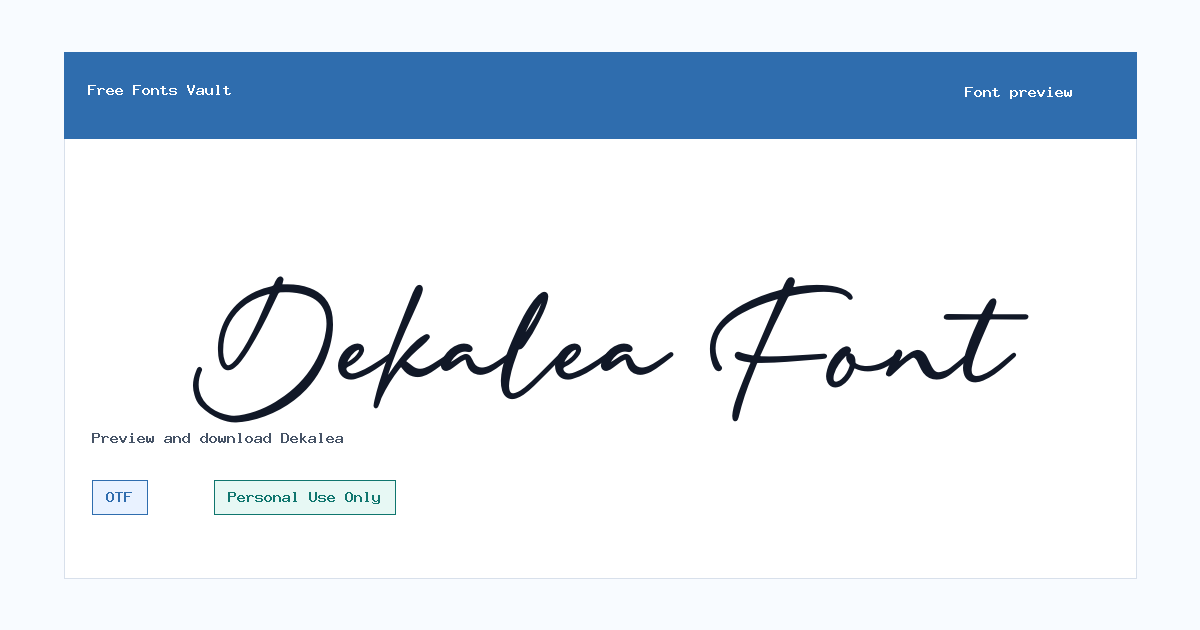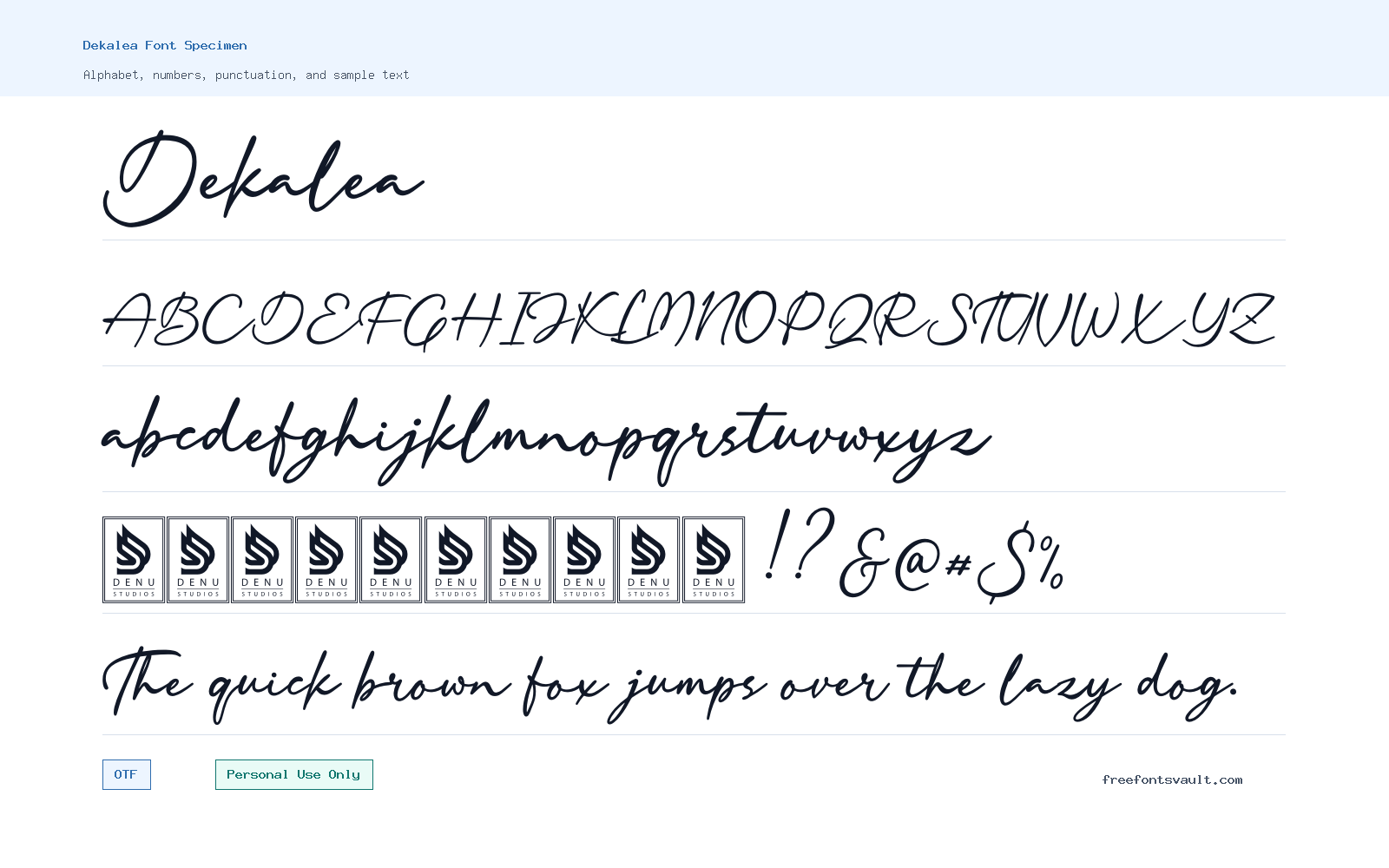
Dekalea
Dekalea font.
Dekalea is a signature script font with a personal-use license, made for visitors who want a smooth handwritten look for short, stylish text.
About Dekalea Font
Dekalea has the feel of a modern signature script: flowing, personal, and best used where the lettering can stay large enough to show its shape. It suits designs that need a handwritten accent rather than a long reading font. Think of name marks, short quotes, product mockups, invitation headings, social graphics, poster titles, and personal branding drafts. Because the available file is an OTF regular style, it is simple to install and test in common design apps that support OpenType fonts.
Use Dekalea with restraint. Script fonts work best when they have room to breathe, so try it on one name, one phrase, or one headline instead of a full paragraph. In logo work, test both wide and compact layouts, because connected strokes can become harder to read when the text is too small. For posters and web mockups, pair it with a clean sans serif or a quiet serif for supporting text. Let Dekalea carry the expressive part, then use the secondary font for dates, captions, buttons, menus, and longer descriptions. Always check the license first if the project is for a client, a product, advertising, merch, a business identity, or any other commercial use.
- Signature-style script look for short display text, names, headings, and decorative accents.
- Works best at medium to large sizes where the handwritten flow remains clear.
- Personal logo concepts and name-based marks
- Invitation headings and greeting card titles
- Poster titles with a soft handwritten accent
- Social media graphics and quote images
- Packaging mockups for non-commercial presentation tests
- Website hero mockups where the script is used sparingly
- Mood boards, personal branding studies, and portfolio experiments
For the best result, preview Dekalea with the exact words you plan to use. Script fonts can change character when letters connect, so test names, initials, uppercase words, punctuation, and spacing before you commit to a layout. If a word becomes hard to read, increase the size, add letter spacing only if it does not break the flow, or switch the supporting text to a simpler font. For pairing, choose a plain sans serif such as a geometric or humanist style when you want a modern look, or a readable serif when the design needs a softer editorial feel. Avoid pairing Dekalea with another decorative script, because the two fonts may compete.
What kind of font is Dekalea?
Dekalea is a signature-style script font. It is best for short display text such as names, headings, logo drafts, invitations, and poster titles.
Can I use Dekalea for a logo?
Is Dekalea good for body text?
No. Dekalea is better for short words and display use. For paragraphs, pair it with a clear sans serif or serif font.
How should I pair Dekalea with other fonts?
Use Dekalea for the expressive heading or name, then choose a clean, readable font for the rest of the design. Avoid another script font in the same layout.